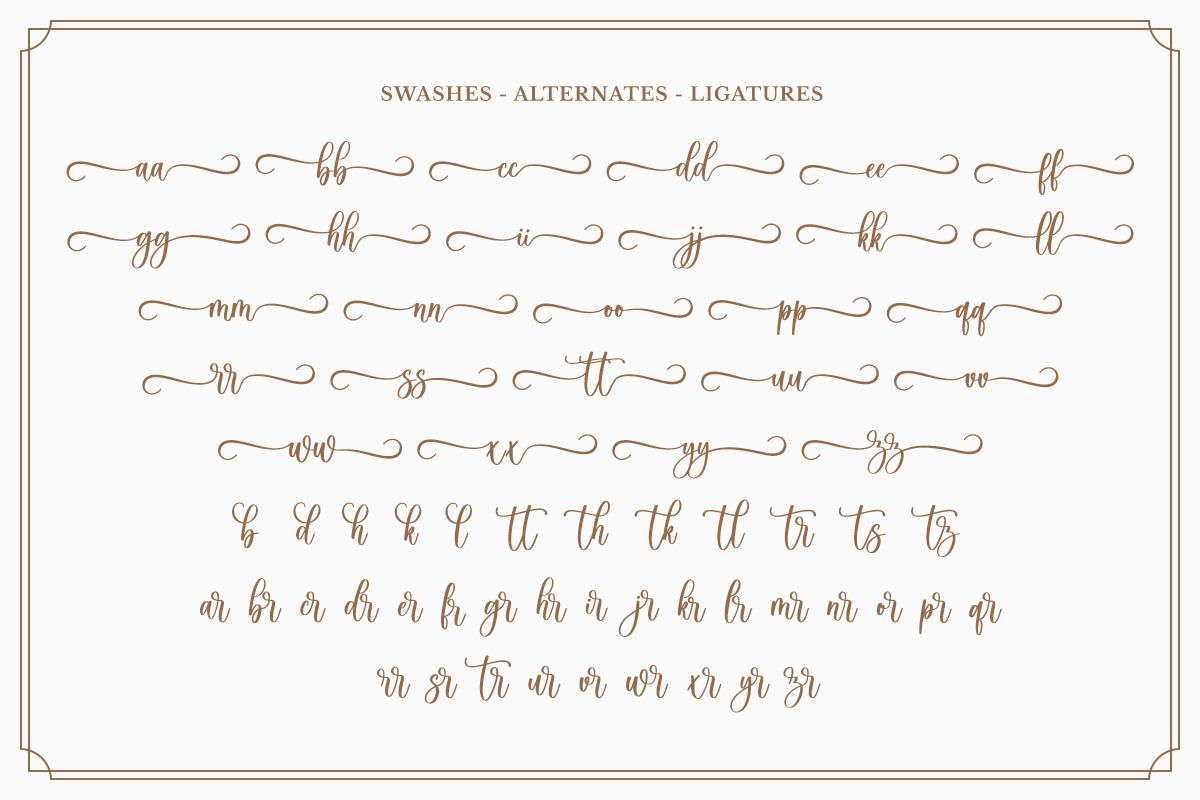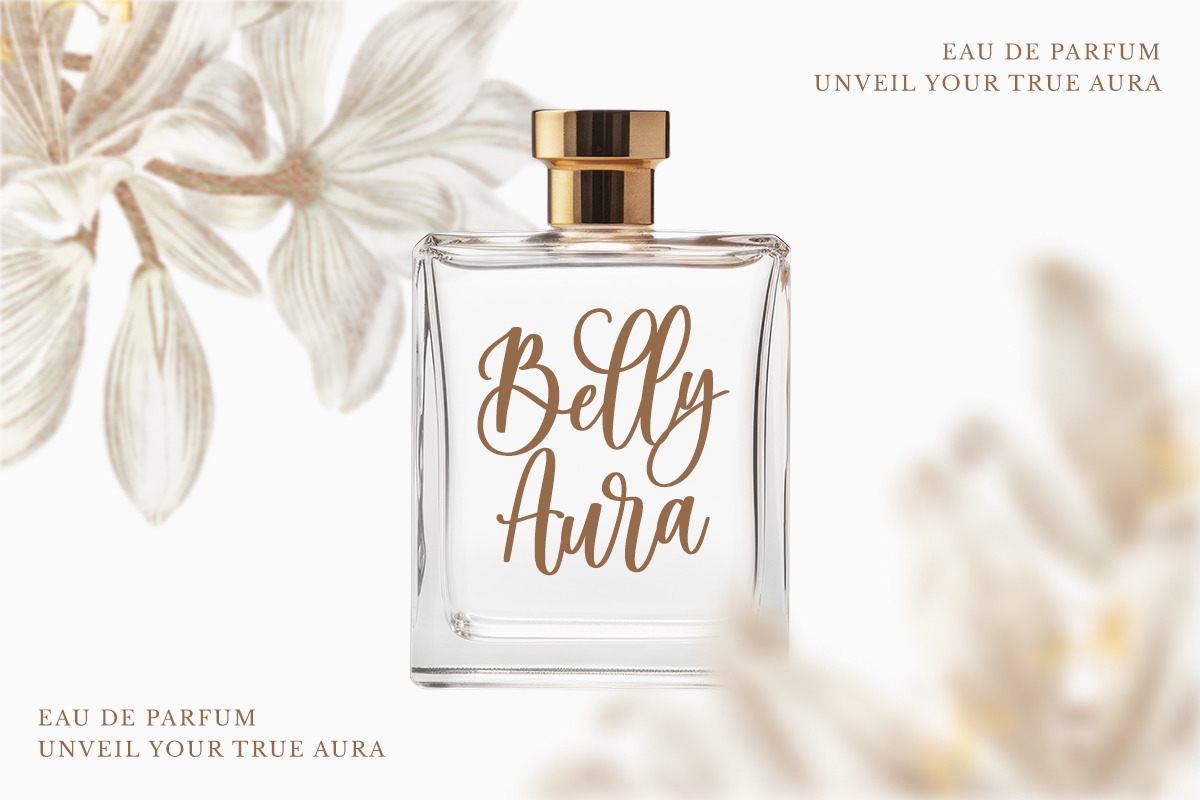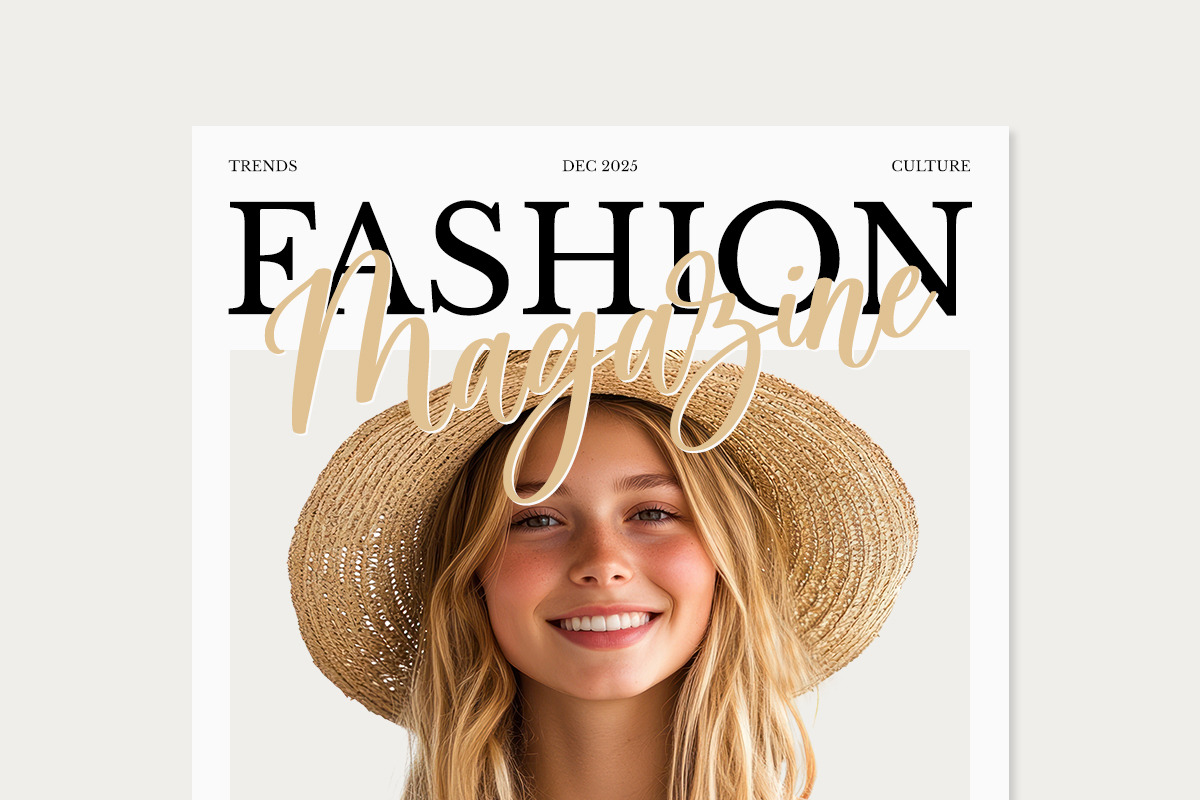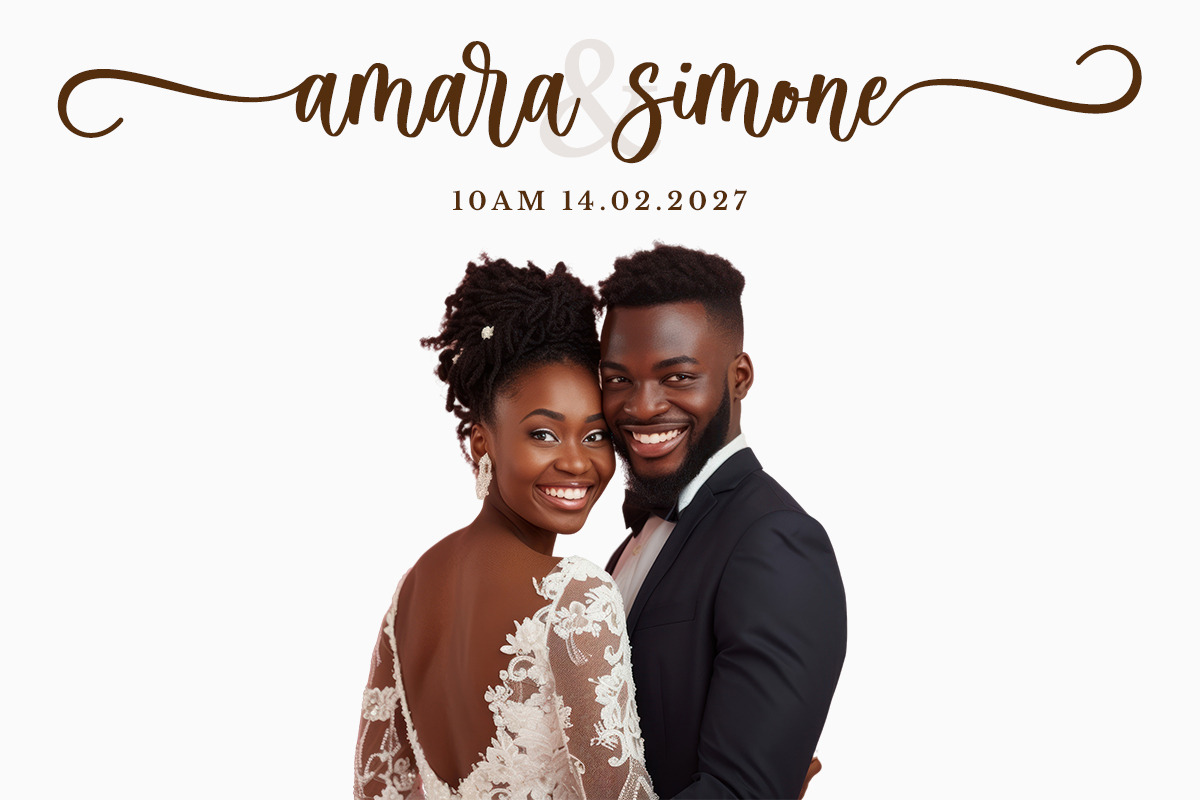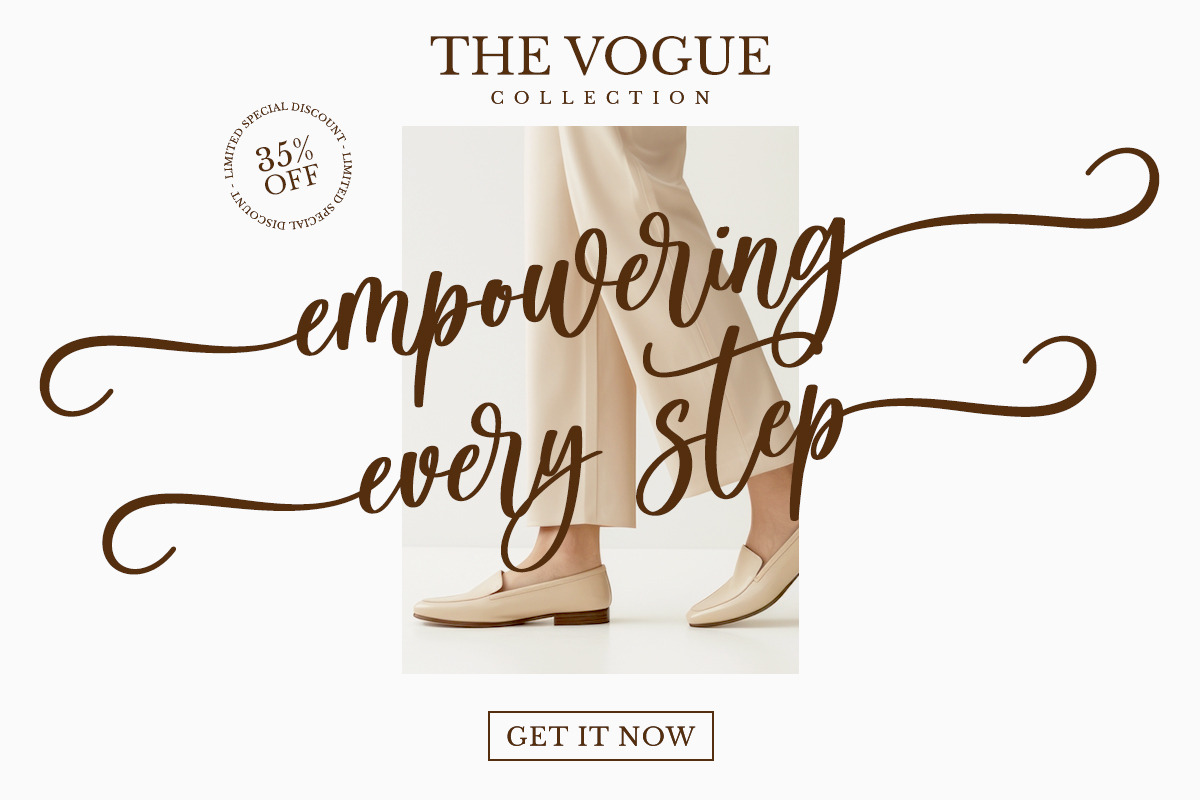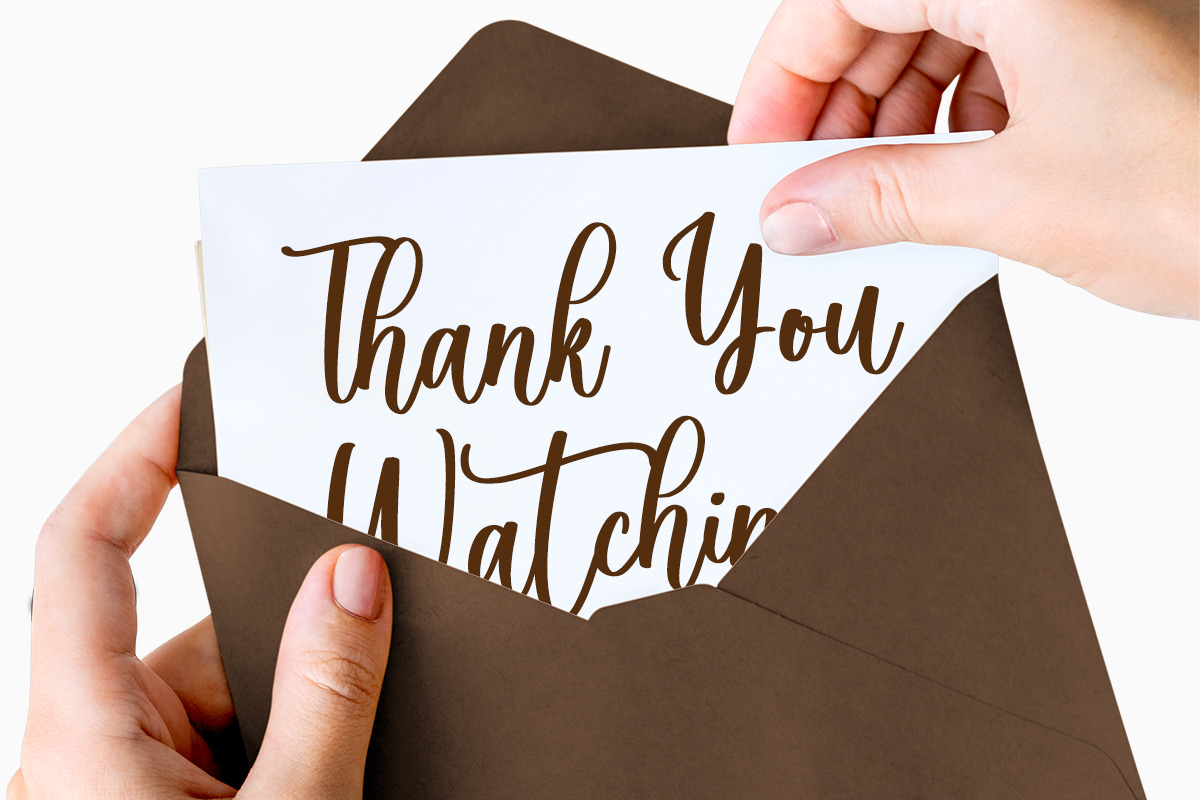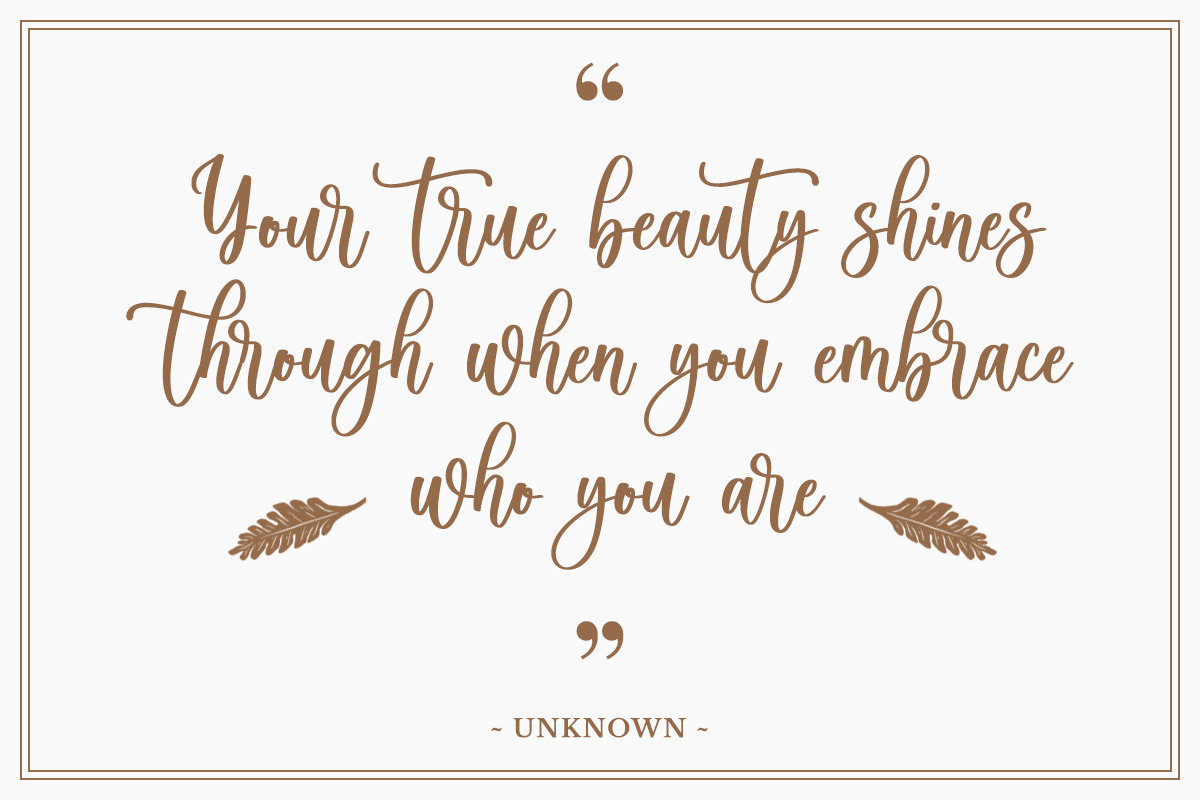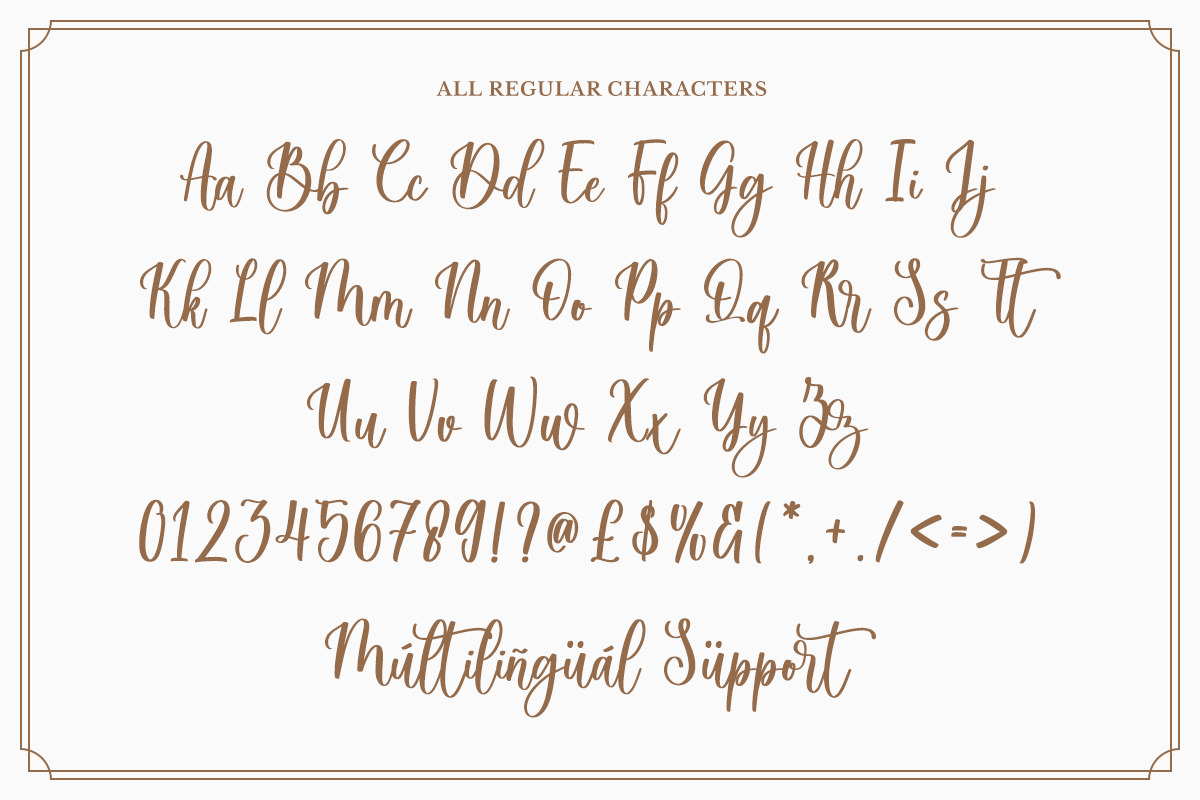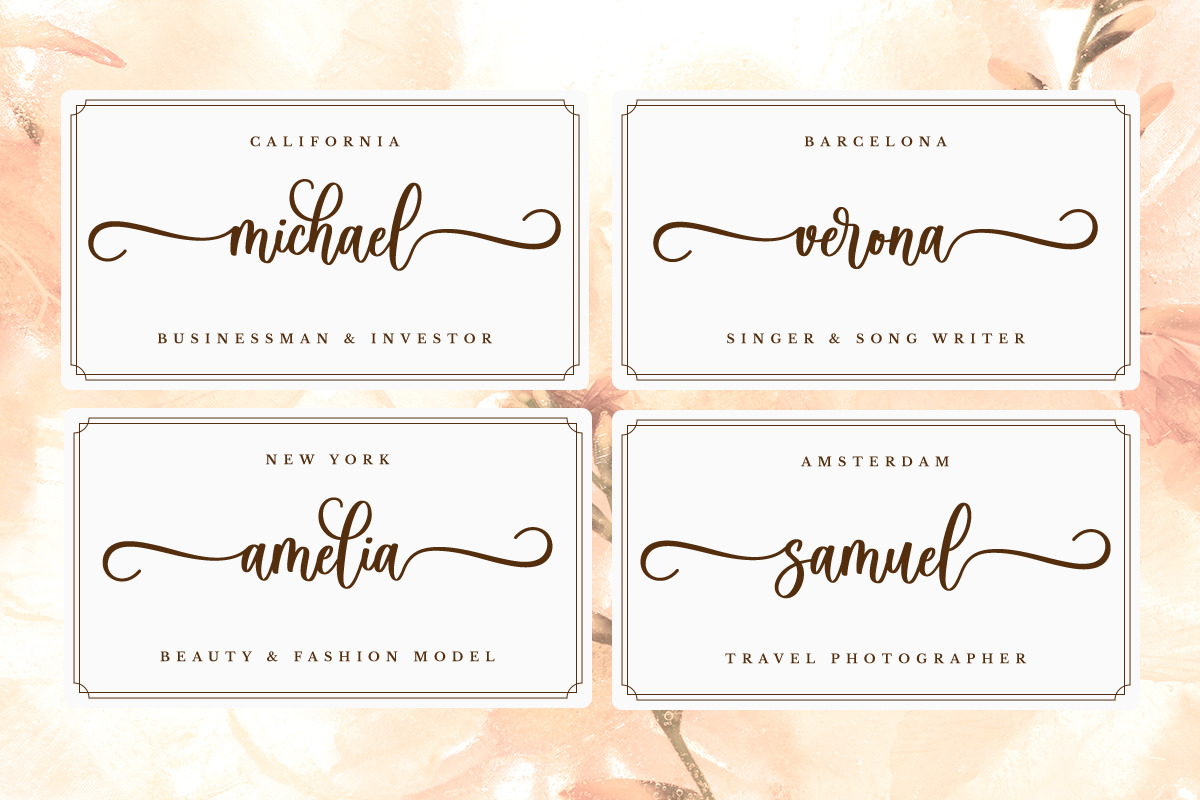
welcome
Welcome is a stunning script handwritten font that exudes elegance and charm, perfect for a variety of special occasions and creative projects. Designed to elevate any creative project, this handwritten typeface embodies a graceful blend of sophistication and playfulness.
Crafted with a romantic and flowing aesthetic, Welcome is perfect for weddings, invitations, birthdays, Easter themes, Cricut projects, embroidery designs, Thanksgiving decor, and seasonal crafts. The natural, hand-drawn style makes it ideal for spring, summer, autumn, and holiday-themed creations including Christmas.
Each character in Welcome features beautifully designed beginning and ending swash tails, creating a seamless and luxurious script flow. With an extensive selection of alternate characters and decorative swashes, this font offers endless creative possibilities to personalize every design with flair.
From heartfelt letters to elaborate craft projects, Welcome brings warmth and charm to every occasion. The soft, fluid strokes give your typography a touch of handcrafted artistry, ideal for those seeking a distinctive and refined visual expression.
- Standard & Multilingual glyphs.